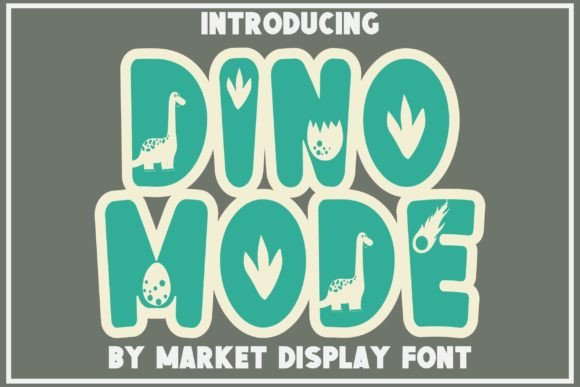
Journey into the world of Dino Mode Font—a decorative font that roars with creativity! Unleash the prehistoric charm in your designs with this dinosaur-themed font. Let your imagination run wild as you create captivating t-shirt designs that spark the imagination of little ones. Embark on a paper crafting adventure and bring to life vibrant dinosaurs that leap off the page. Transform web graphics into a Jurassic wonderland, where every click reveals a new dinosaur discovery.
Dino Mode Font is not just a font; it's a portal to a world where dinosaurs roam free. Its playful spirit will inspire you to create designs that captivate and entertain. Let your creativity erupt like a volcano, and watch as your designs transform into a vibrant tapestry of prehistoric wonder. Dino Mode Font is the ultimate tool for crafting designs that transport users to a world of imagination and wonder. Seize the opportunity to make your designs roar with Dino Mode Font today!
With Dino Mode Font, the possibilities are endless. Its captivating design adds a touch of whimsy and wonder to any project. Whether you're designing for print or digital, Dino Mode Font will make your designs shine. Its bold and playful nature demands attention, making it the perfect choice for capturing the imagination of your audience. Dive into the realm of Dino Mode Font and let your designs take flight!
Created by the talented Phongsakon Phonkhammak, Dino Mode Font is a testament to the power of imagination and the magic of creativity. As you explore the depths of this font, you'll discover a world of possibilities waiting to be unearthed. Embrace the Dino Mode Font and ignite your creativity like never before!